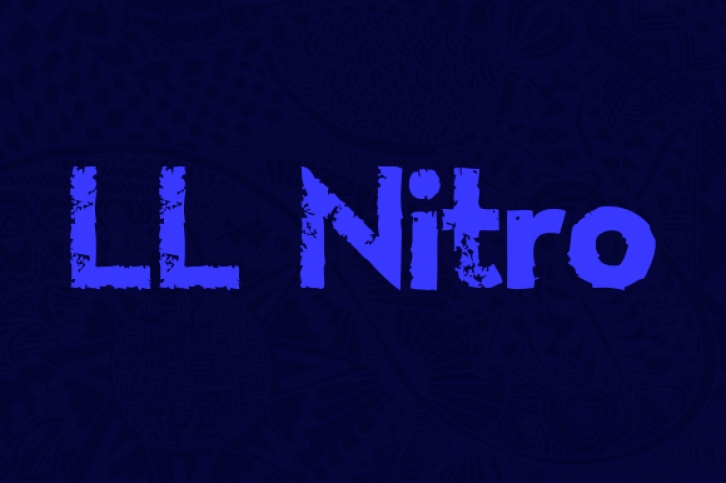
LL Nitro is a great, grundge font in a sans serif style. This is a great way to subtly incorporate edgy elements into your design without detracting from your work.